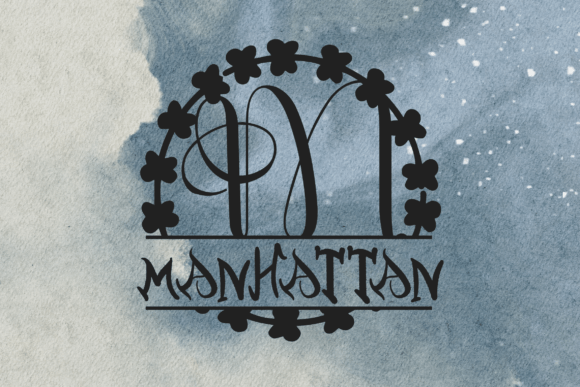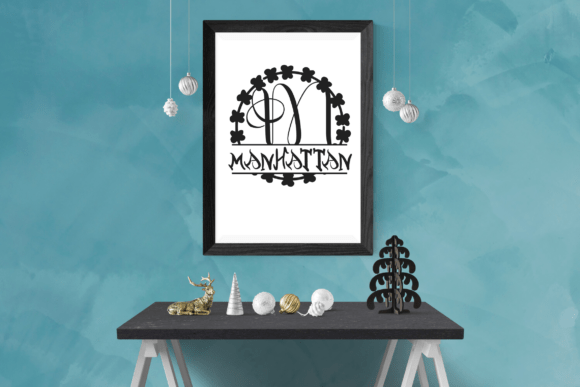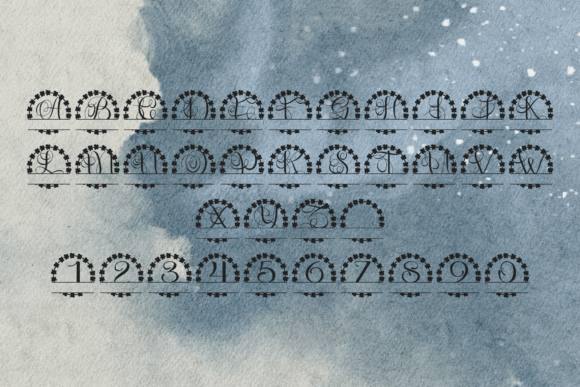
Introduction to Olivenza Split Monogram Font
As you sit at your desk, surrounded by half-finished projects and scattered design resources, you finally get that spark of inspiration. You’re working on a special wedding invitation, and you want to give it a touch of elegance. That’s when you stumble upon the perfect font – Olivenza Split Monogram Font. This beautiful, high-quality font turns simple initials into stunning botanical emblems, instantly elevating your design from ordinary to extraordinary.
With its clean center split and smooth strokes, Olivenza Split Monogram Font makes it easy to add a personal touch to your designs. Whether you’re working on a creative project for a client or a personal gift, this versatile font is sure to impress. And the best part? It’s a breeze to use, with a transparent background that prints beautifully in various formats.
Key Features of Olivenza Split Monogram Font
- Unique and elegant design, perfect for creative projects and personal branding
- Transparent background, allowing for easy customization and versatility
- Design resource suitable for logos, business cards, invitations, and other design projects
Honest Review: Olivenza Split Monogram Font
I recently had the chance to use the Olivenza Split Monogram Font for a creative project, and I must say it’s been a game-changer. This font is perfect for adding a touch of elegance and sophistication to any design.
- ✨ High-quality design: The Olivenza Split Monogram Font is beautifully crafted, with intricate details and a unique style that sets it apart from other fonts.
- ✨ Versatility: This font is perfect for a variety of creative projects, from branding and advertising to editorial and digital design.
- ⚠️ Limited character set: The Olivenza Split Monogram Font is primarily designed for monogram use, so it may not be the best choice for longer blocks of text.
High-Quality Design Resource
The Olivenza Split Monogram Font is a high-quality design resource that features a transparent background, making it easy to use in various design projects.
The Olivenza Split Monogram Font is commonly used in:
- Business cards and logos
- Personalized gifts and merchandise